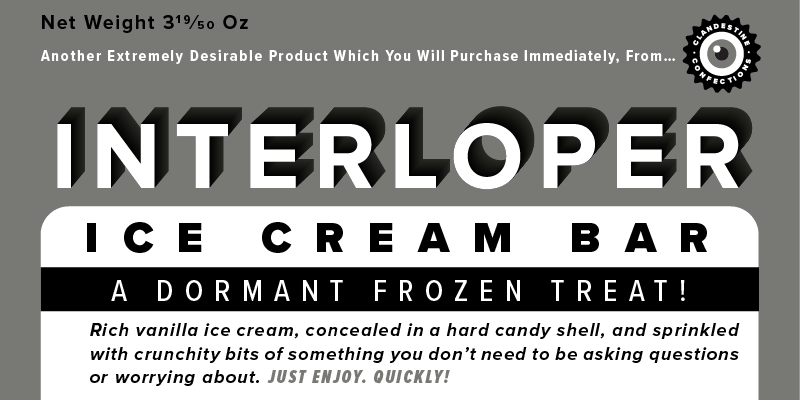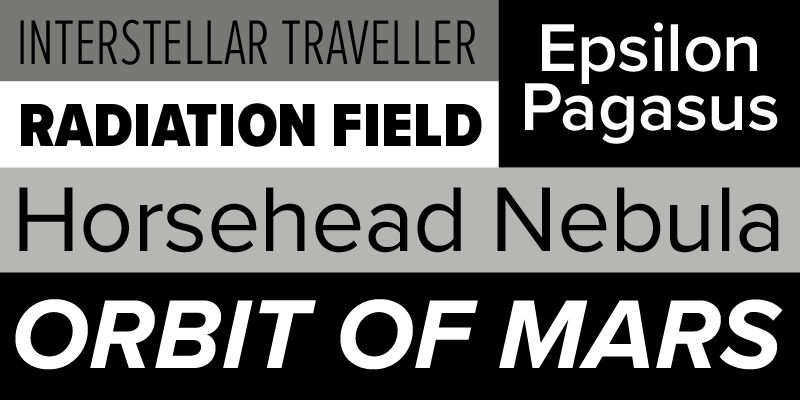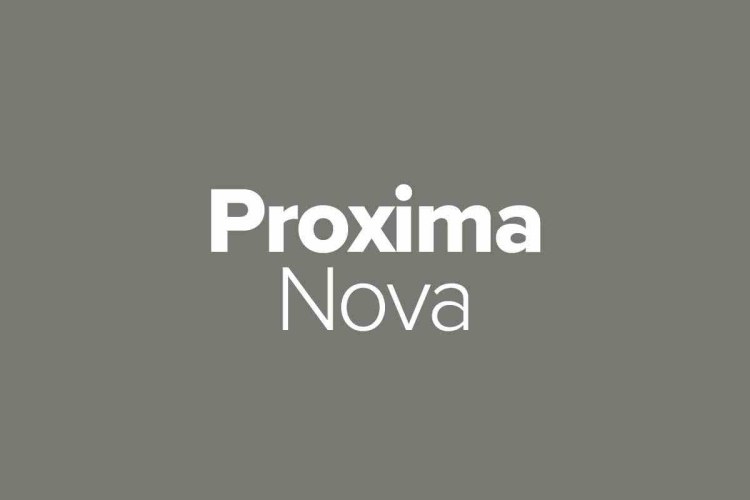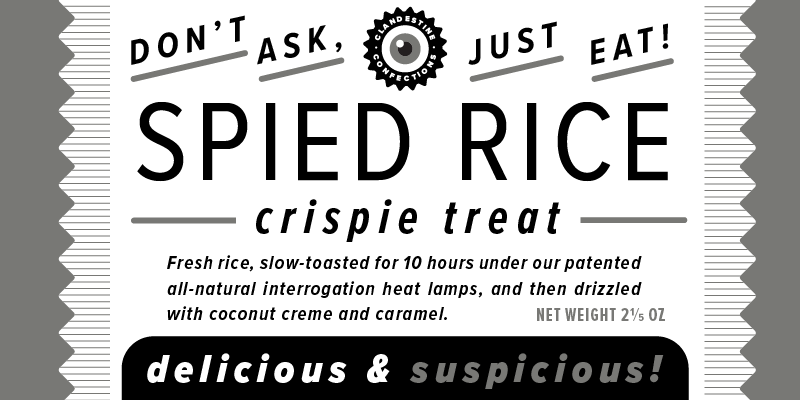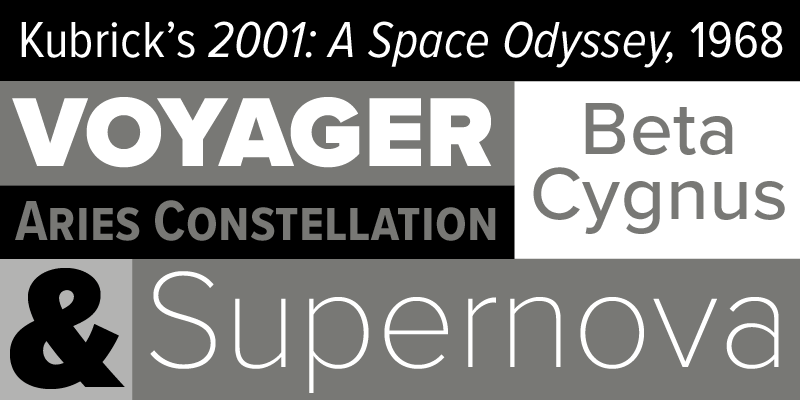
Proxima Nova Font
Proxima Nova is a highly versatile and widely acclaimed typeface designed by Mark Simonson. With its clean, modern aesthetic and excellent legibility, Proxima Nova has b…
Proxima Nova is a highly versatile and widely acclaimed typeface designed by Mark Simonson. With its clean, modern aesthetic and excellent legibility, Proxima Nova has become a staple choice for designers across various industries. Here’s an overview of what makes Proxima Nova font stand out:
Proxima Nova features a sleek and contemporary design characterized by its geometric shapes and clean lines. This modern aesthetic makes it suitable for various design applications, from web and mobile interfaces to print materials and branding.
Proxima Nova offers an extensive font family, including weights (from Thin to ExtraBold) and styles (Regular, Italic, Condensed, etc.). This versatility allows designers to create visually dynamic layouts and maintain consistency across design elements.
Moreover, the font family includes condensed versions for instance in cases where space requirements are tight or the layout designer is opting to compact the content. This flexibility allows designers to play with different combinations and layouts, preserving harmony and unity in their designs.
Reasons Metrics Clear and Legible Proxima Nova has a high x-height and open apertures, making it easy to read even at small sizes. Versatile Proxima Nova comes in a variety of weights and styles, making it suitable for a wide range of design projects. Modern and Timeless Proxima Nova has a contemporary feel that is both fresh and classic, making it a popular choice for designers. Web-Friendly Proxima Nova is optimized for web use, with various web fonts available and excellent legibility on screens. Brand Recognition Proxima Nova is used by many well-known brands, giving it a sense of authority and trustworthiness.Several characteristics make Proxima Nova particularly popular among designers:
Versatility: Designers now can choose from an extended font range in various weights (thin to black) and basic bold variants for each font, making visual hierarchy creation way more interesting than before.
Legibility: When considering readability, beautiful letterforms, even at smaller sizes and low resolutions, help ensure that texts are legible and easily read.
Modern Aesthetic: Proxima Nova is a font inspired by its unique geometric lines and contemporary style. This font is perfect for projects that need to evoke the notions of professional and modern style.
Broad Language Support: Proxima uses different language tools to offer extensive languages, allowing the global market to use the font.
Contrary to familiar fonts like Helvetica and Arial, Proxima Nova gives one more sophisticated option, a compilation of the principal features of those classics but with something more to offer.
Some high-end substitutes for Proxima Nova like Montserrat, Gotham, and Avenir are also the same regarding their clean typography and modern layout.
Proxima Nova is a typeface designed by Mark Simonson in 2005. It is a font that doesn’t have serifs and is used for its ultramodern and uncluttered look.
Praima Nova is helpful to web designers as it is a flexible font that fits different situations. It is not hard to read on screens and has a clean, modern and professionally designed look that can easily be applied to various website categories.
Proxima Nova possesses several factors that facilitate its wide acceptance by web designers. It features a large x-height and this improves the readability on the screen. It is also comes with a range of weights and styles such as regular, bold, and Light, which makes it easier to have in different application.
Proxima Nova is a commercial font whose holder is the designer, Mark Simonson. It can be purchased through his website or via various other font sellers.
Designers may prefer other fonts for web design. Most sought after fonts could be Helvetica, Open Sans, and Roboto. Such fonts are similar to Proxima Nova and can be an outstanding choice for website design.
Where Proxima Nova Font works best
Proxima Nova Font stays legible at small sizes, which makes it a strong choice for navigation, buttons and dashboards in web design and app interfaces.
Clean sans serifs like Proxima Nova Font are the default language of SaaS, fintech and product branding.
What is Proxima Nova Font good for?